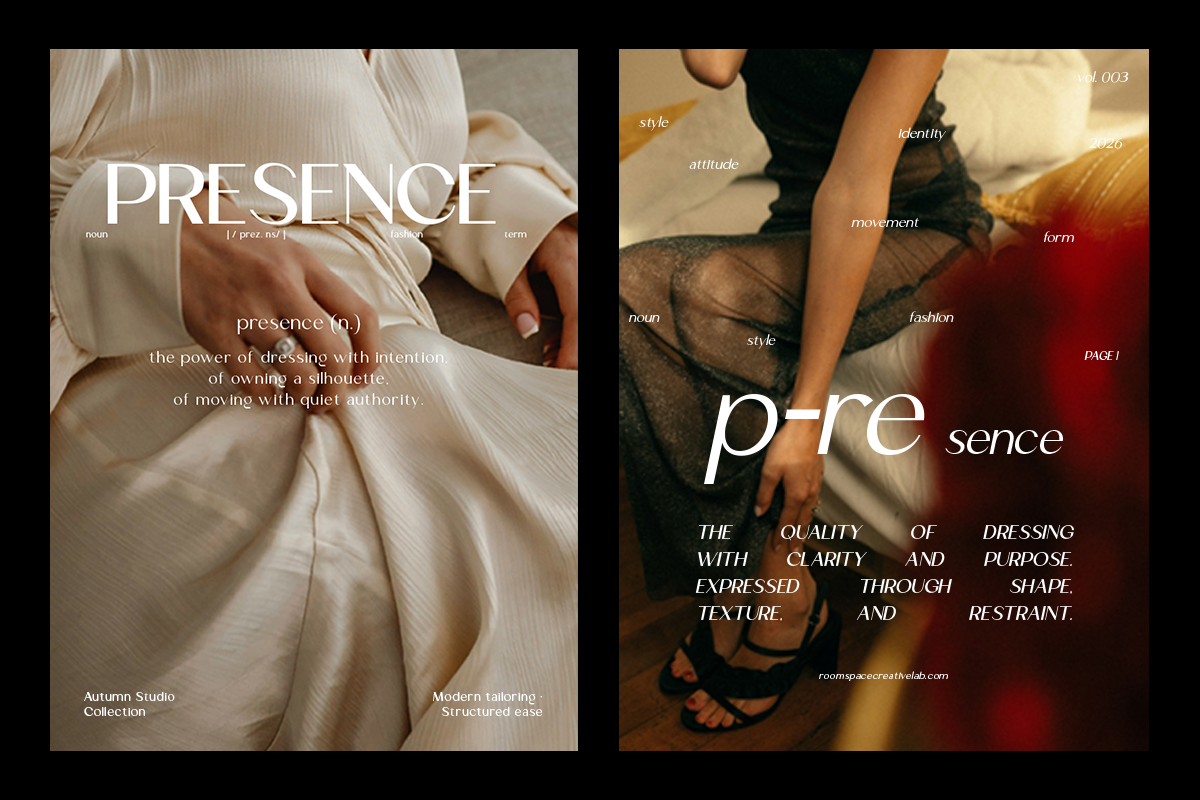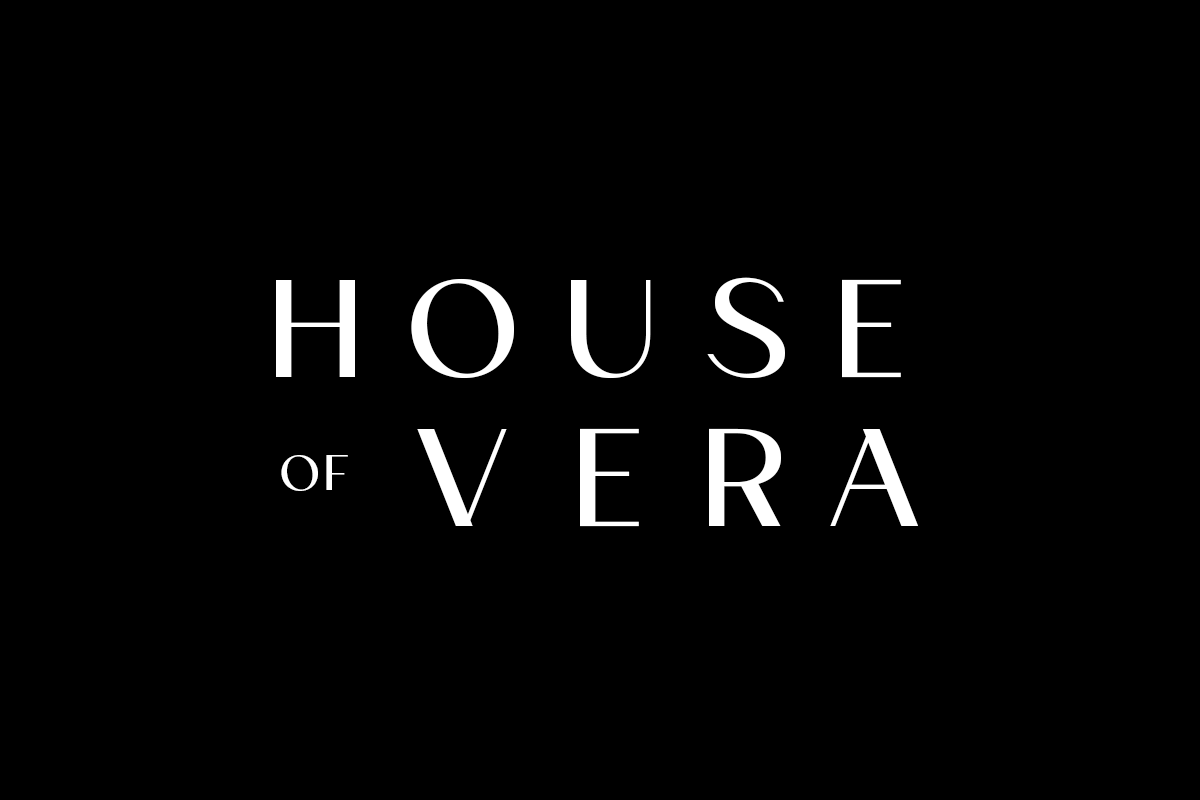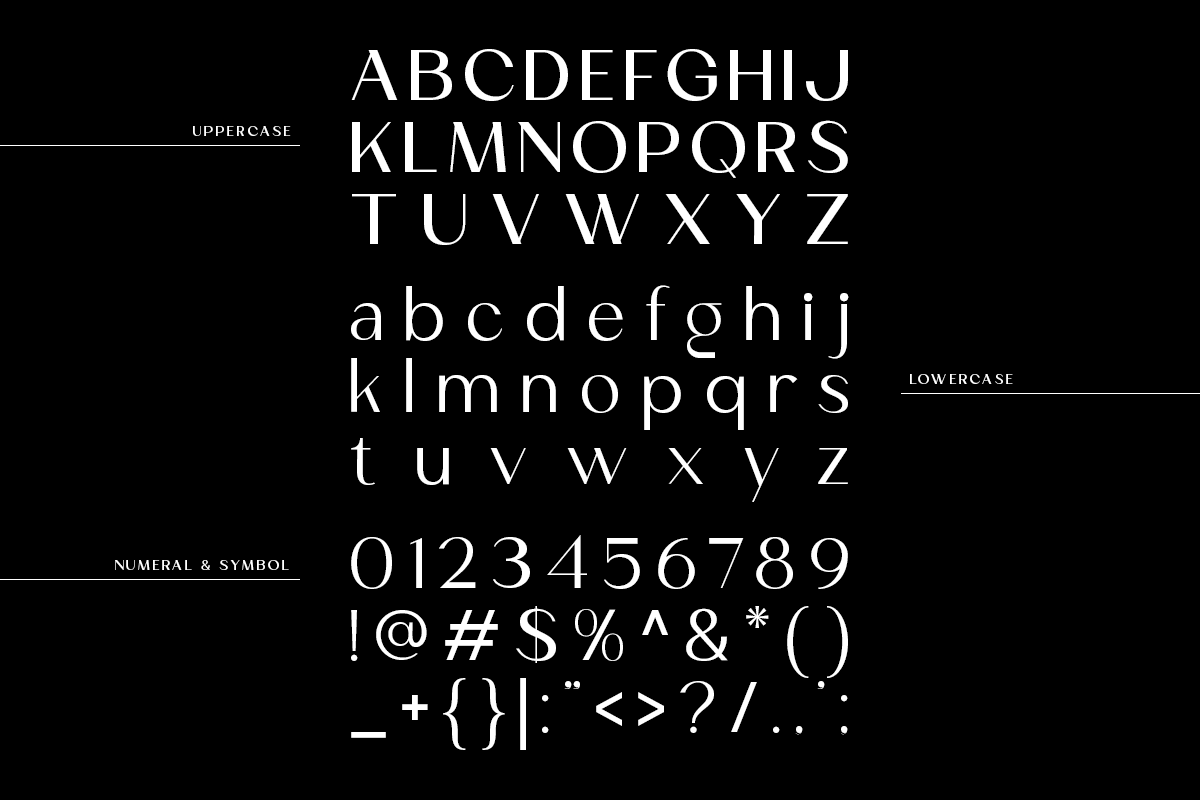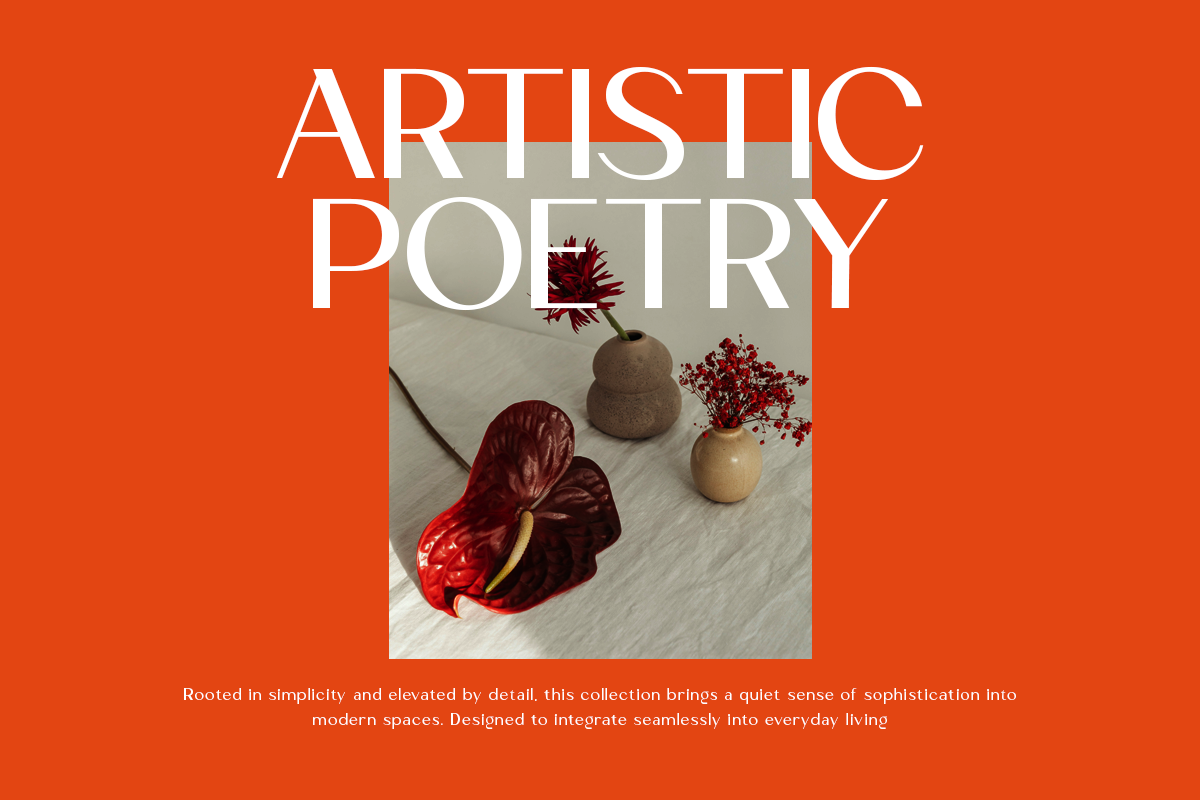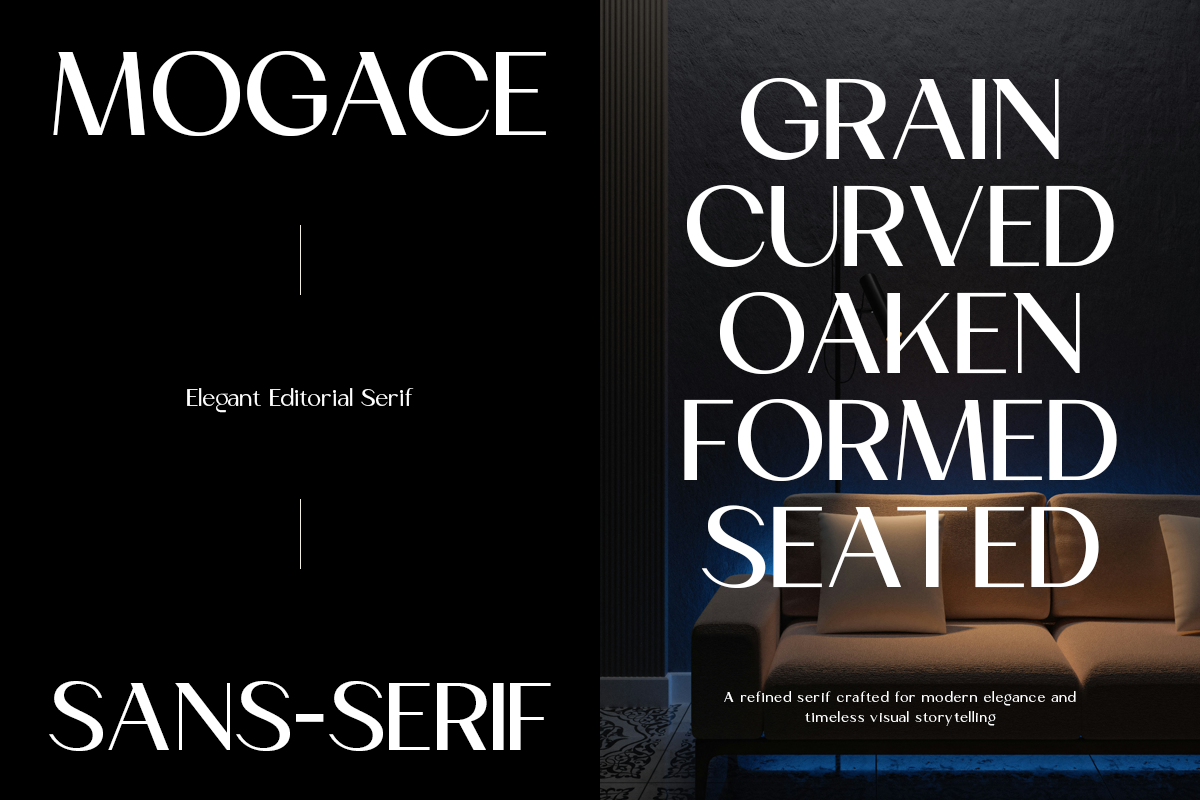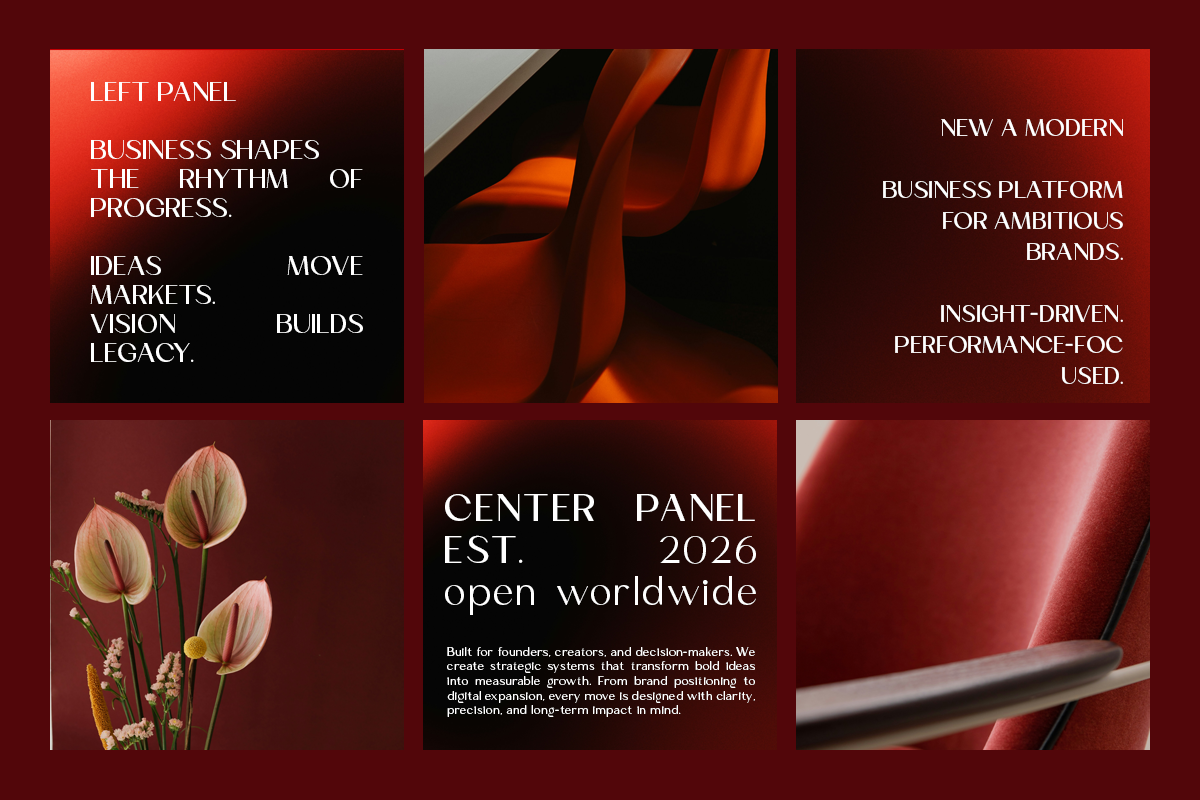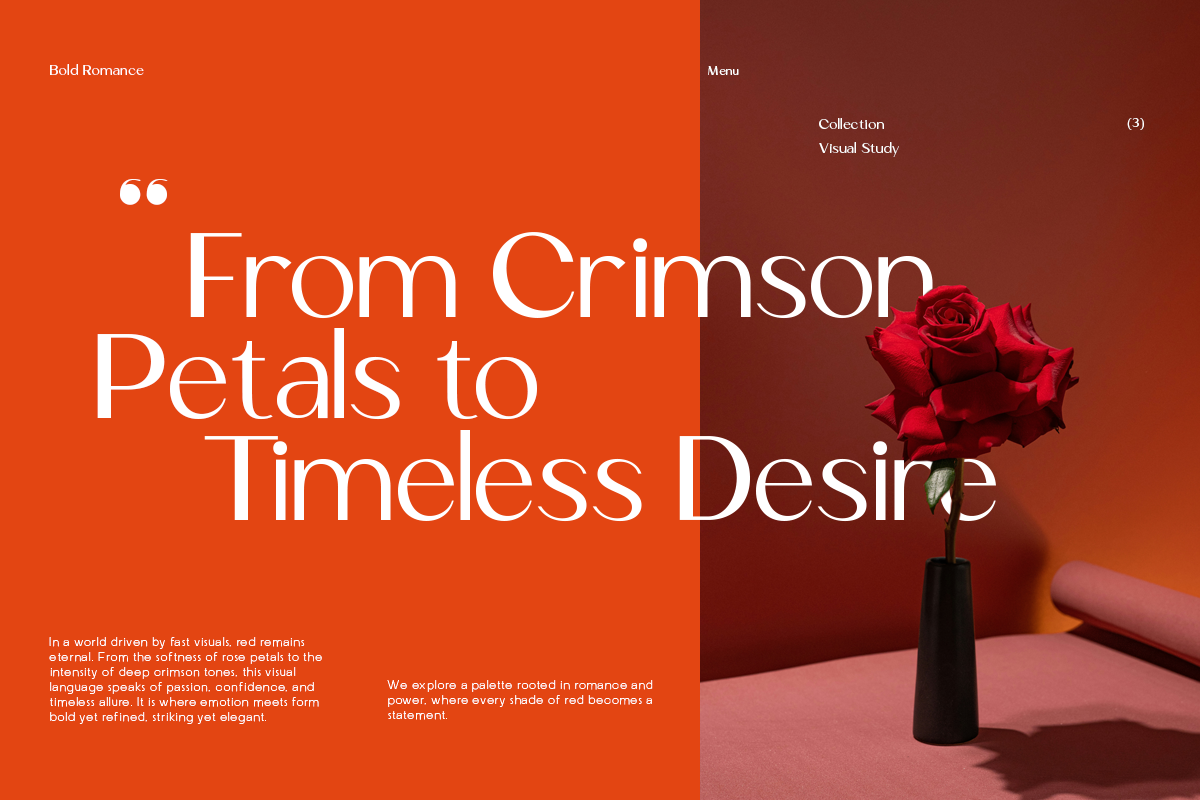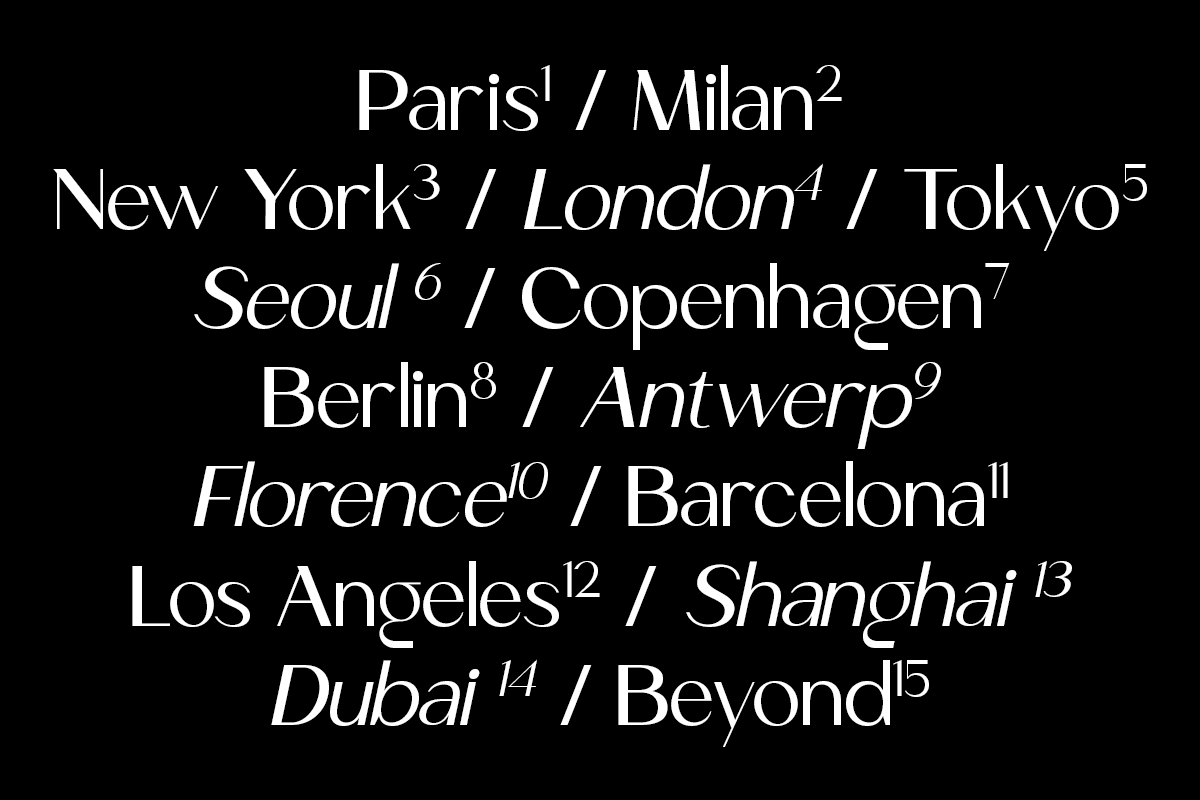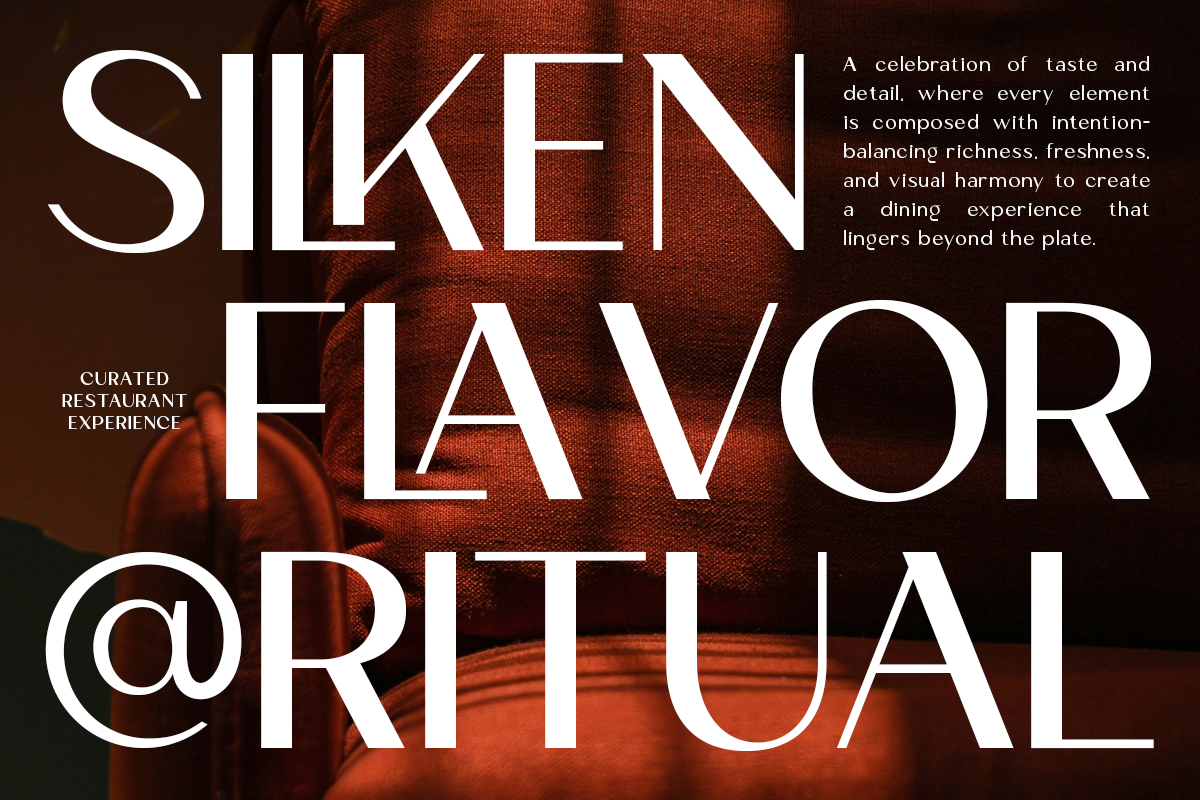
Mogace – Elegant Editorial SansSerif
Mogace is a modern editorial serif typeface designed to deliver elegance and visual sophistication. With its high-contrast strokes, refined curves, and carefully balanced proportions, Mogace creates a strong yet graceful presence across a wide range of applications. Inspired by fashion magazines and luxury branding, this typeface is built for designers who seek clarity, style, and timeless appeal. Whether used for bold headlines or refined layouts, Mogace enhances visual storytelling with a distinctive editorial tone.
- Modern high-contrast serif
- Ligatures & stylistic alternates
- Smooth kerning & spacing
Perfect For: Luxury branding, fashion editorials, logos, packaging, magazines, social media, and visual identity systems.